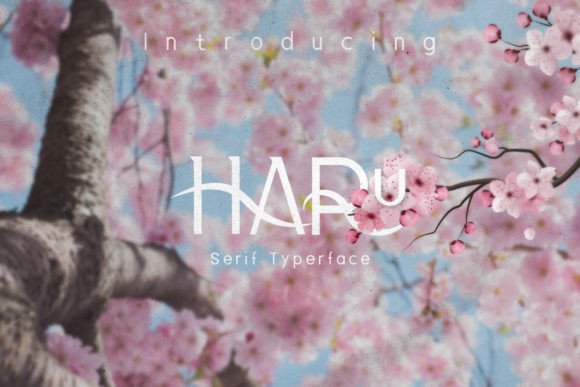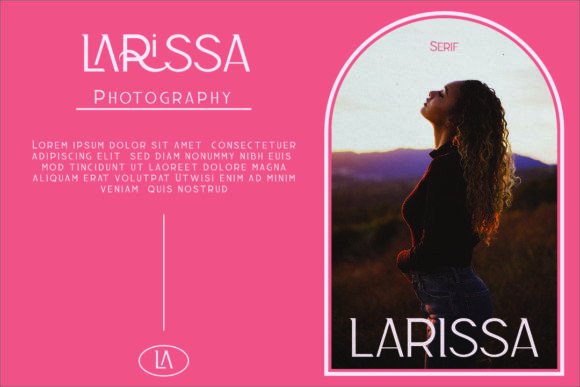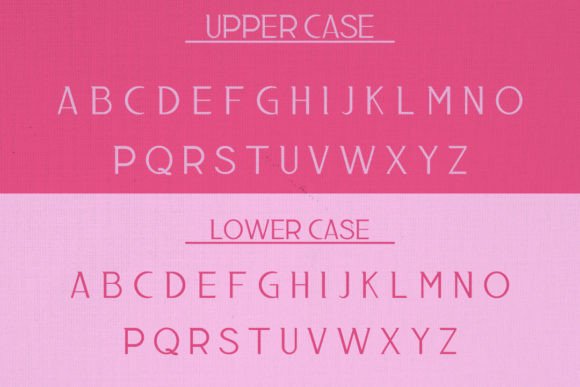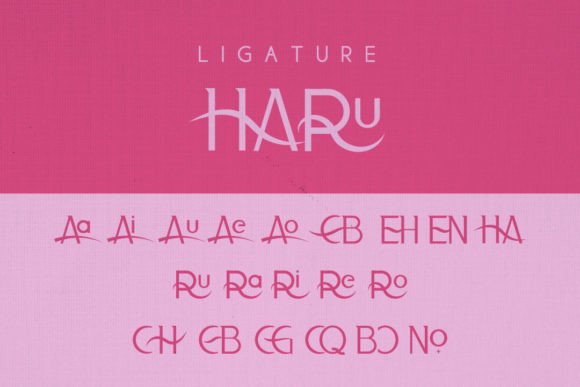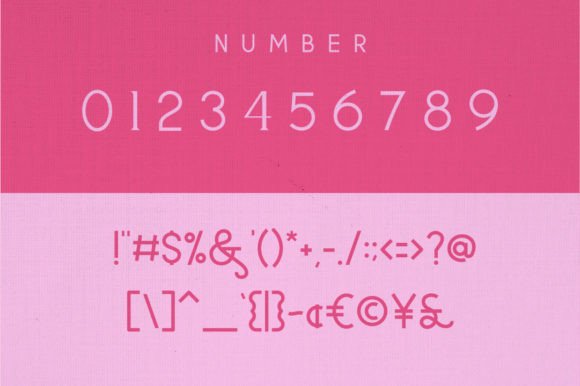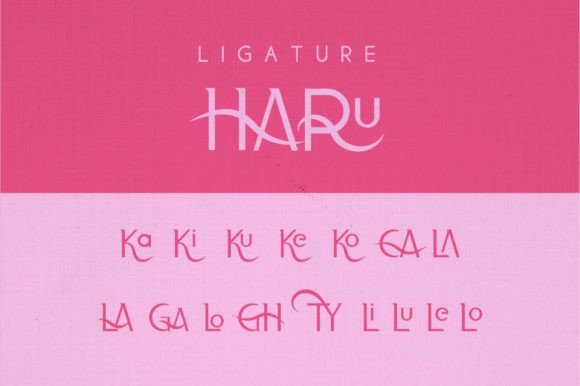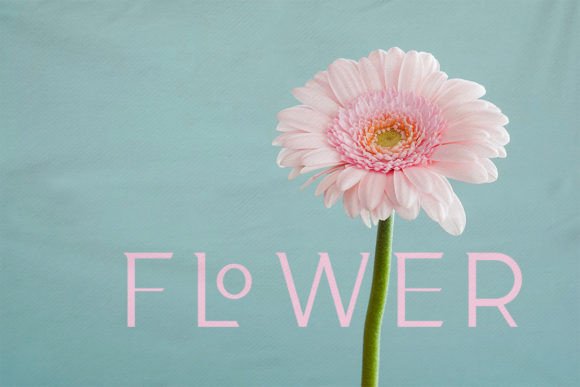
Haru
Haru: A Modern and Fresh Slab Serif Font
Haru, meaning “Spring” in Japanese, is a modern, fresh, easy to read, and versatile slab serif font. Its clean and contemporary design makes it perfect for a wide range of applications, particularly in digital and print media.
Key Features of Haru
• Modern Design: Offers a contemporary look suitable for various applications.
• Slab Serif Structure: Features distinctive serifs that add character while maintaining readability.
• Versatile Application: Ideal for both digital and print media projects.
• Fresh Aesthetic: Brings a sense of renewal and vitality to designs.
Ideal Uses for Haru
Haru’s unique characteristics make it particularly well-suited for:
When incorporating Haru into your designs, consider these tips:
• Use for both headlines and body text to showcase its versatility and readability.
• Experiment with different sizes to highlight the font’s modern features.
• Consider pairing with sans-serif fonts for contrast in complex layouts.
• Utilize its fresh appearance to create designs that evoke a sense of renewal and energy.
Haru is an excellent choice for designers looking to add a modern and fresh slab serif font to their typographic toolkit. Its ability to bring a contemporary and versatile touch to various design projects makes it stand out in the world of typography. Whether you’re working on social media content, creating logos, or developing website designs for fashion and travel blogs, Haru offers the perfect blend of style and readability.
Furthermore, Haru’s unique design allows it to shine in various contexts. From digital platforms to print media, this font can elevate your projects with its distinctive style. Its modern yet readable appearance works particularly well in designs that aim to convey a sense of freshness and vitality.
In conclusion, Haru is a font that truly captures the essence of modern design with a touch of springtime freshness. Its versatility across different media showcases its adaptability to various creative needs. For those looking to add a touch of contemporary charm to their work, Haru can enhance themed creations with its distinctive style. It’s the perfect choice for designers seeking to make a clean, stylish impact across a wide range of creative projects in both digital and print formats.